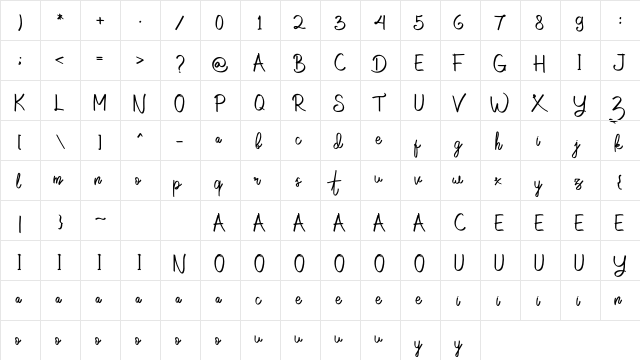
Cobain Aja Demo Regular
Design Context for Cobain Aja Demo Typeface
Cobain Aja Demo is a composed and adaptable typeface that performs quietly and consistently across a wide range of design contexts.